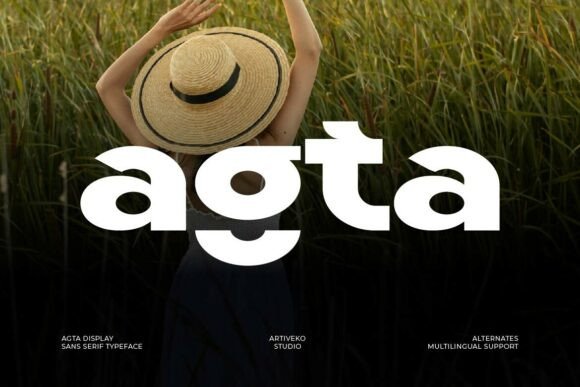
The Agta Font: A Modern Creative Sans Serif for Your Design Projects
Have you ever been in the middle of a design project, struggling to find the perfect font that brings your vision to life? I recall a recent experience where a client asked for a modern, clean, and professional look for their branding. After scouring through numerous font options, I stumbled upon Agta – a game-changing sans serif typeface that exceeded my expectations.
An Honest Review of Agta Font
What I Love About Agta ✨
- ✅ Clean lines and balanced proportions that ensure clarity and readability
- ✨ Subtle unique details that add an expressive touch to your designs
- 🌈 A versatile font suitable for various design projects, from branding to digital media
- 💻 Excellent for both print and digital applications
- ⚠️ Limited availability of extended language support
- ⚠️ Some users may find the font too minimalist for certain design contexts
- Explore Agta’s OpenType features, such as stylistic alternates, to add creative flair to your text
- Use Agta’s stylistic alternates and glyphs to enhance your text
The Backstory of Agta Font
Agta was designed with the goal of creating a modern, creative sans serif typeface that brings clarity and flexibility to design projects. The font’s creator aimed to craft a font that is both professional and expressive, making it suitable for a wide range of applications.
| Font Name | Agta Font |
| Author | Artiveko |
| What is Agta font best used for? | Agta font is best used for designs that require a modern, clean, and professional look, such as branding, digital media, and print materials. |
| Is Agta font suitable for body text? | Yes, Agta font is suitable for body text due to its clarity and readability. |
| Does Agta font support multiple languages? | Agta font has limited language support, so it’s best to check the font’s specifications before using it for multilingual projects. |